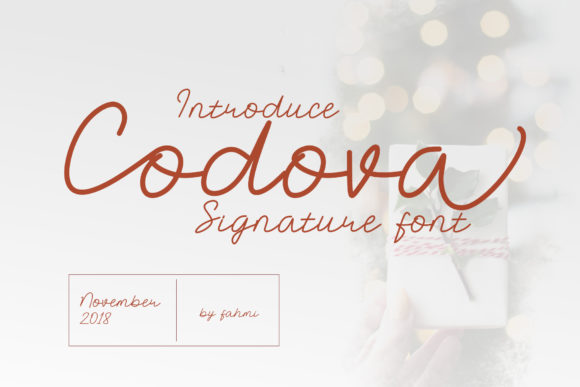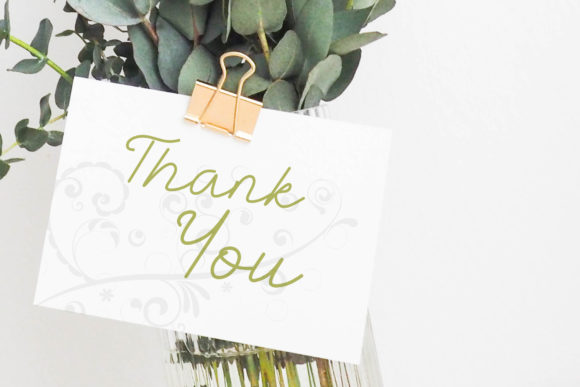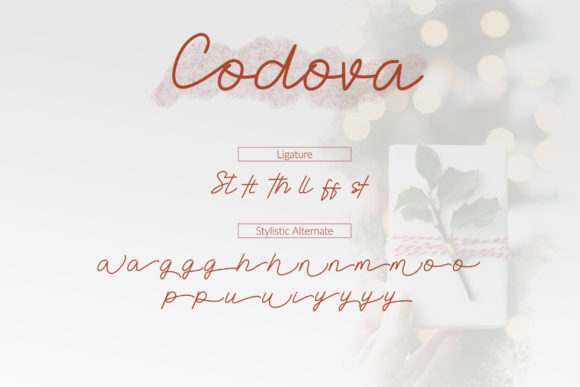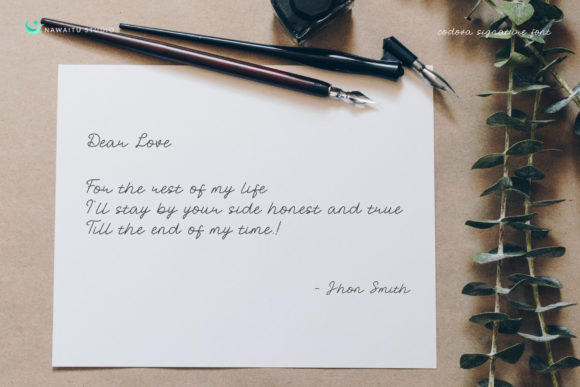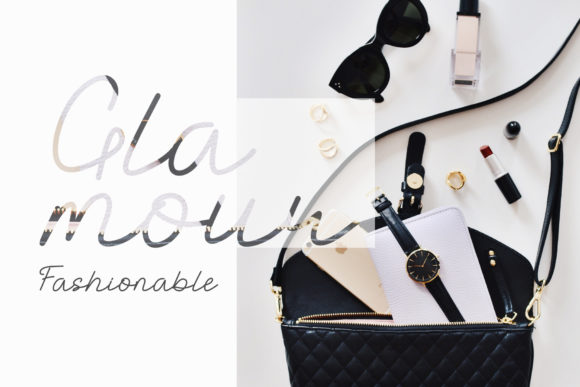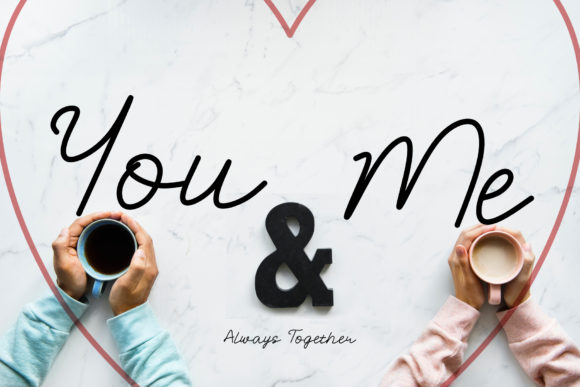
Codova Font
About Codova Font
The Codova is a funtastic, lovely and elegant signature script with so much energy, allowing you to create wonderful handwriting typography with style in an instant.
It will absolutely make your text appear beautiful as printed quotes, invitations, cards, product packaging, headers and whatever your imagination could reach.